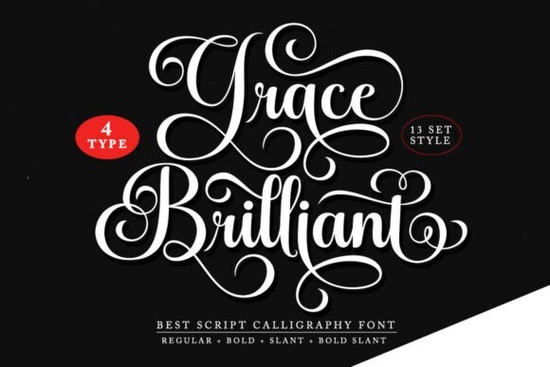
If you're looking for a script font that feels both refined and approachable something that works as well on a wedding invitation as it does on a small-batch soap label Grace Brilliant Font is worth your time. It’s not overly ornate, but it carries quiet confidence: smooth letterforms, subtle contrast, and consistent spacing that makes it easy to read at smaller sizes. Whether you’re designing for print, digital, or craft projects, this font handles real-world use without needing heavy tweaking.
When does Grace Brilliant Font work best?
This isn’t a one-trick script. Its balanced rhythm and clean terminals mean it adapts well across formats where clarity matters like restaurant menus, boutique packaging, or greeting cards meant to be read (not just admired). It also pairs nicely with simple sans-serifs or light serifs for body text, so you’re not stuck choosing between personality and practicality.
Small business owners often ask: “Can I use this for my logo and my product tags?” Yes with Grace Brilliant, you can. The uppercase letters have presence without shouting, and the lowercase flow naturally in connected or spaced settings. If you sell handmade goods, run a local café, or design stationery for clients, this font gives consistency across touchpoints without feeling repetitive.
How does it compare to other popular script fonts?
Like Mafuinka Font, Grace Brilliant leans elegant rather than playful but where Mafuinka adds gentle bounce, Grace Brilliant keeps things grounded and legible. The Bileso Font offers more dramatic swashes, which suits bold branding but can overwhelm delicate applications like book chapter headings or apothecary labels. Grace Brilliant sits comfortably in the middle: expressive enough to stand out, restrained enough to stay readable.
You’ll also notice differences in spacing behavior. Fonts like Loopzy Font and Stowy Font are great for casual, hand-drawn vibes but they often need manual kerning adjustments for formal uses. Grace Brilliant arrives with tighter, more predictable spacing out of the box, saving time when you’re juggling multiple client files or seasonal product launches.
And if you’ve used Candy Diary Font before, you’ll recognize the warmth in Grace Brilliant but without the rounded softness that sometimes blurs at small sizes. That makes it especially handy for printed materials where ink spread or low-resolution screens might soften details.
What kinds of projects get better results with Grace Brilliant?
- Wedding and event stationery from save-the-dates to place cards, its elegance reads as intentional, not generic.
- Small-batch product labeling think candle jars, tea tins, or skincare bottles where tone matters as much as ingredients.
- Book interiors and covers particularly for romance, literary fiction, or memoirs where voice and subtlety count.
- Local business branding bakeries, florists, salons, or yoga studios benefit from its quiet sophistication.
- Digital ads and social graphics it holds up well even in compressed JPEGs or Instagram story templates.
Grace Brilliant is a single-style script font (no bold or italic variants), so plan accordingly if your layout needs visual hierarchy through weight shifts. You’ll want to pair it thoughtfully try a neutral sans-serif like Montserrat or Lato for supporting text. Also, while it includes standard Latin characters and basic punctuation, double-check if you need extended language support (e.g., accented characters for French or Spanish) before finalizing a multilingual project.
One last note: if you’re building a brand system, test Grace Brilliant at different sizes before committing to full mockups. It shines at 18–36 pt for headlines and 14–16 pt for short labels but drops off slightly below 12 pt in print, especially on textured paper.